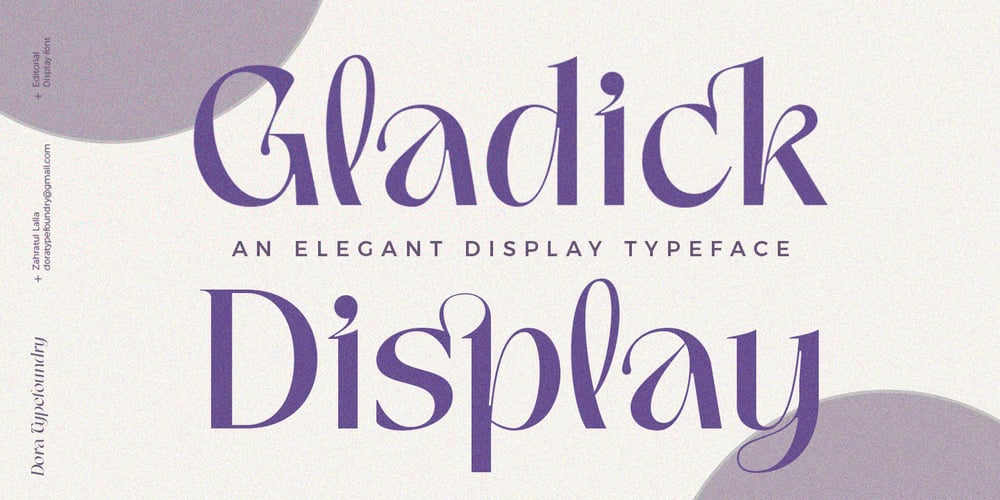
Gladick Display Font Family was designed by Zahratul Laila and published by Dora Typefoundry. Gladick Display contains 2 styles and family package options. Gladick is a modern take on a sans style typeface but mixes in the added contrast of serifs to make the font contemporary and memorable. Each letter is crafted with care to make your text unique yet stylish. Soft curves make for a bold type Now with the addition of italics. Great for fashion branding and editorial design.Features: All Uppercase and Lowercase Number & Symbol Supported Languages Alternates and Ligatures PUA Encoded This type of family has become the work of true love, making it as easy and fun as possible.I really hope you enjoy it!if you have any questions or problems please contact email:doratypefoundry@gmail.comThank you and good job.